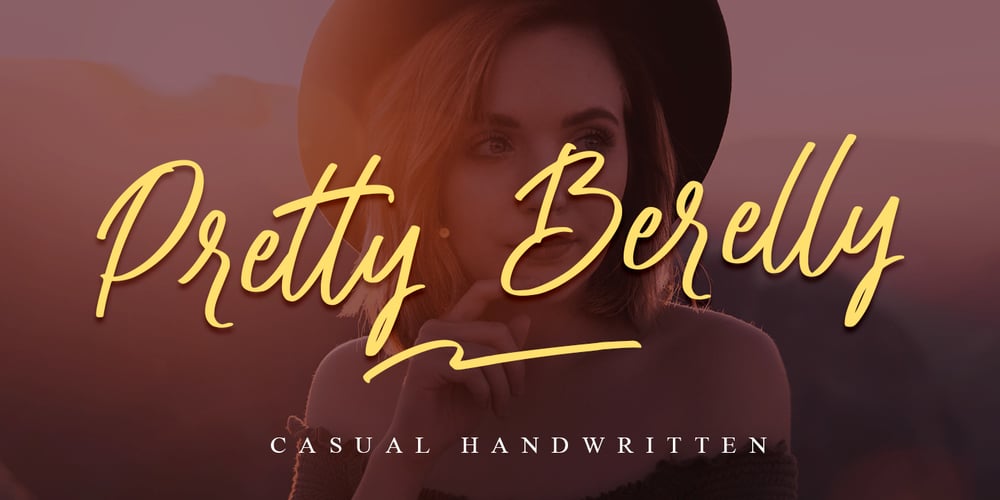
Pretty Berelly Font Family was designed by Muhammad Mujibulloh and published by MJB Letters. Pretty Berelly contains 1 styles and family package options. Pretty Berelly is a beautiful and cursive script font. It has a lively, elegant and modern look that can be used for logos, branding, invitations, stationery, wedding designs, social media posts, and much more!